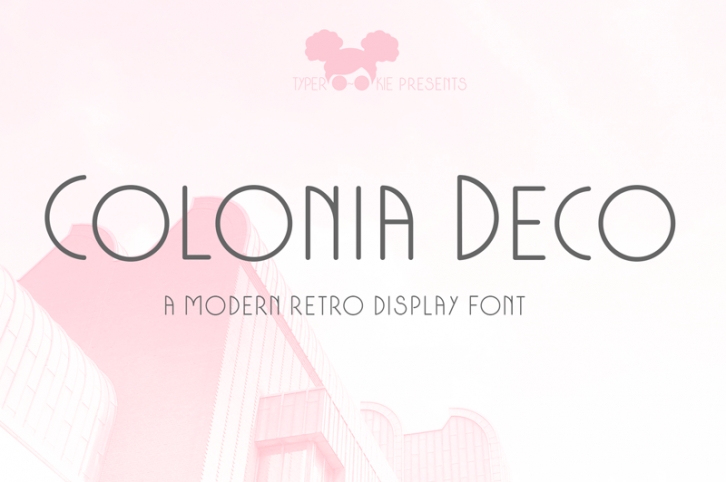
Born in the city of Cologne - in the heart of Europe, "Colonia Deco" is an elegant Sans Serif typeface with a touch of vintage. It's a perfect choice for designs with a luxurious look and feel and matches beautifully with curly script fonts. This is the demo version, the full version comes with multilingual support and a variety of special characters.